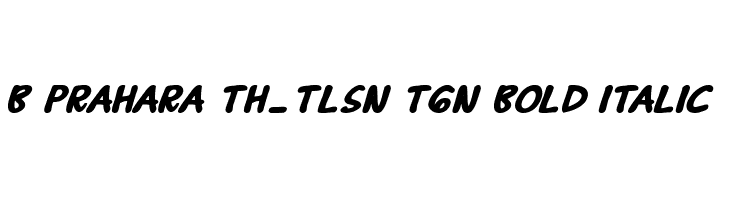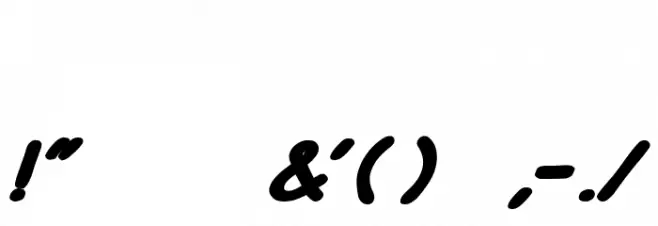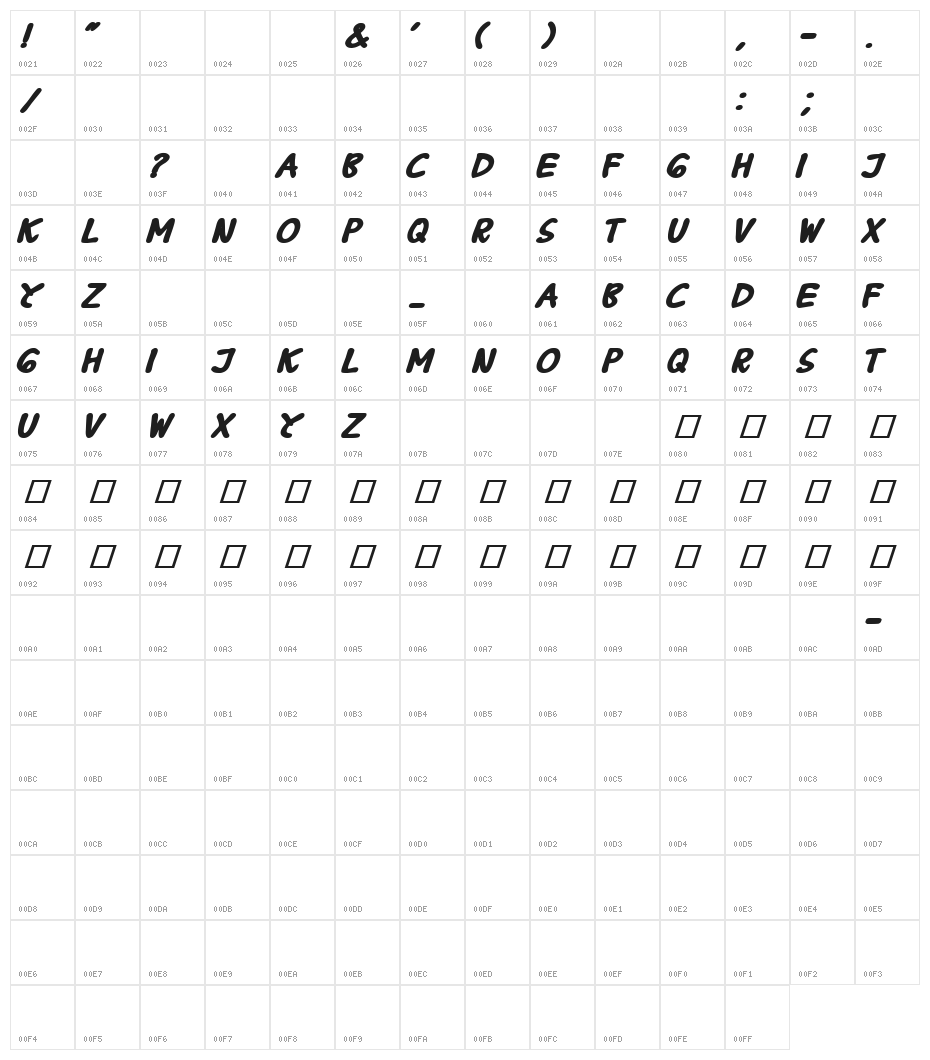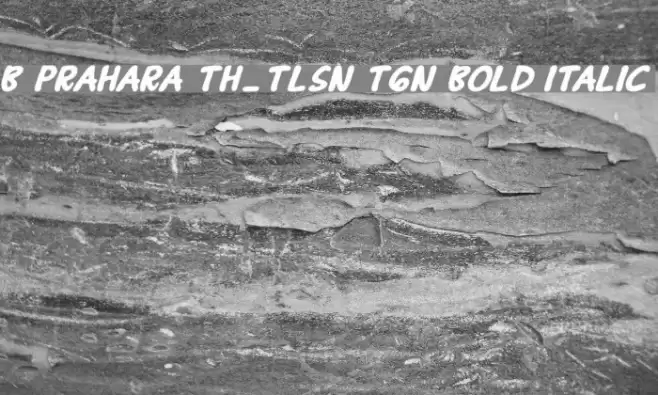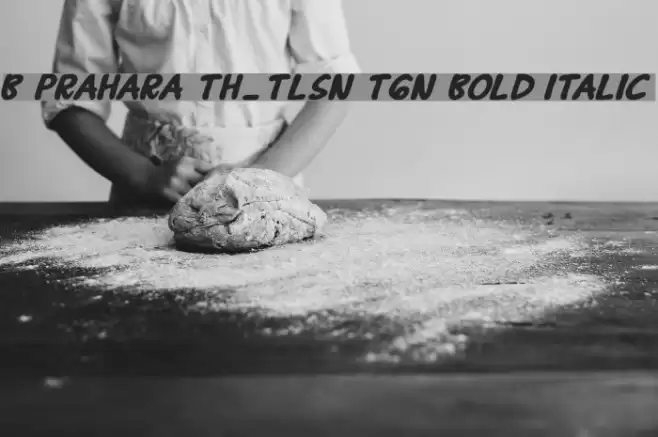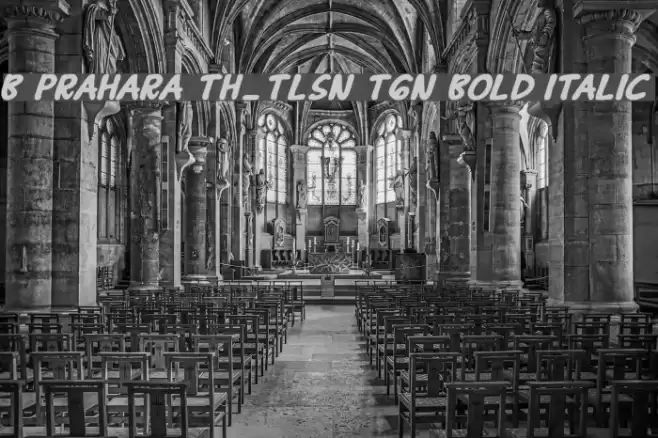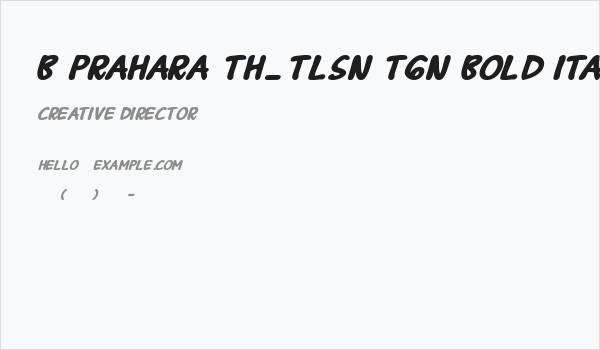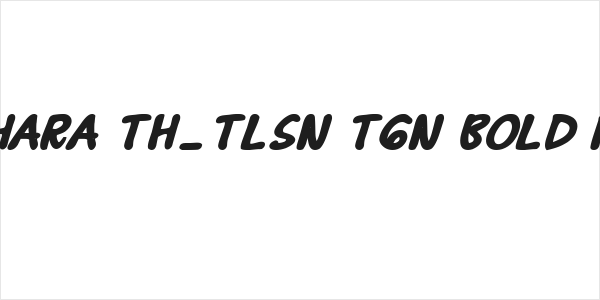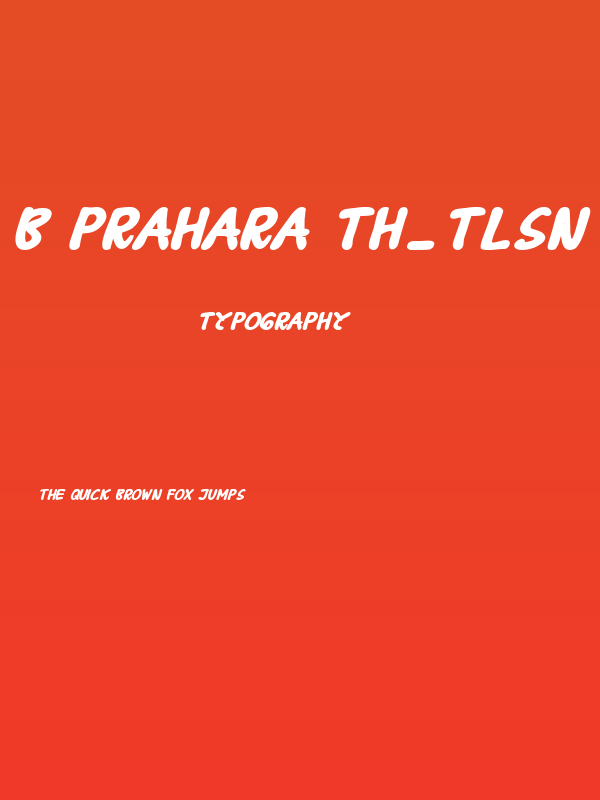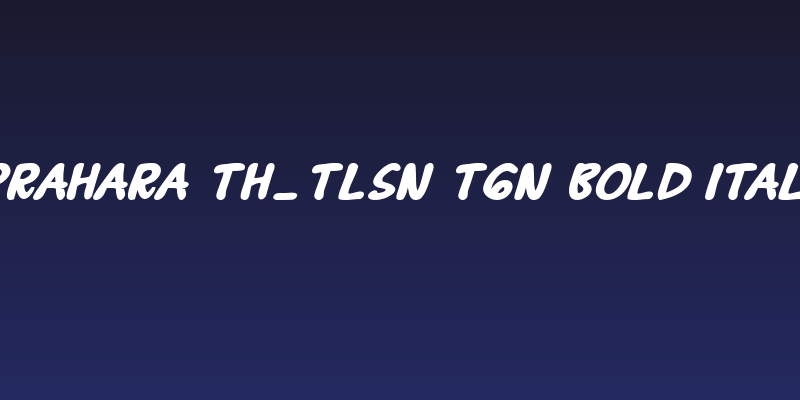
B Prahara TH_Tlsn Tgn Bold Italic Font
B Prahara TH_Tlsn Tgn Bold Italic Description
This font features a bold and italic style with a dynamic and energetic appearance. The characters are slightly slanted, giving a sense of motion and fluidity. The strokes are thick and consistent, providing a strong visual impact. The overall design is playful yet assertive, making it suitable for attention-grabbing headlines or creative projects. The rounded edges soften the boldness, adding a friendly and approachable feel. This font is versatile, balancing between modern and casual aesthetics, making it ideal for various design applications.
| Proposed Projects | Ideal for headlines, posters, branding, and creative design projects. |